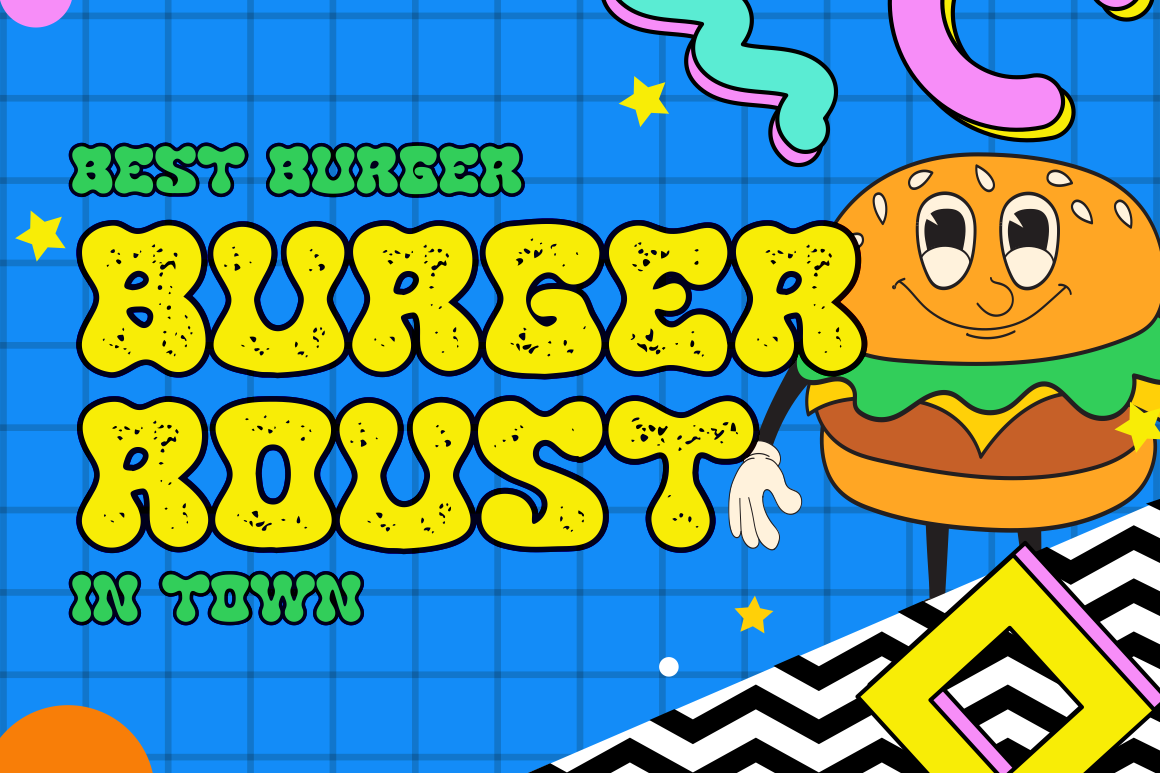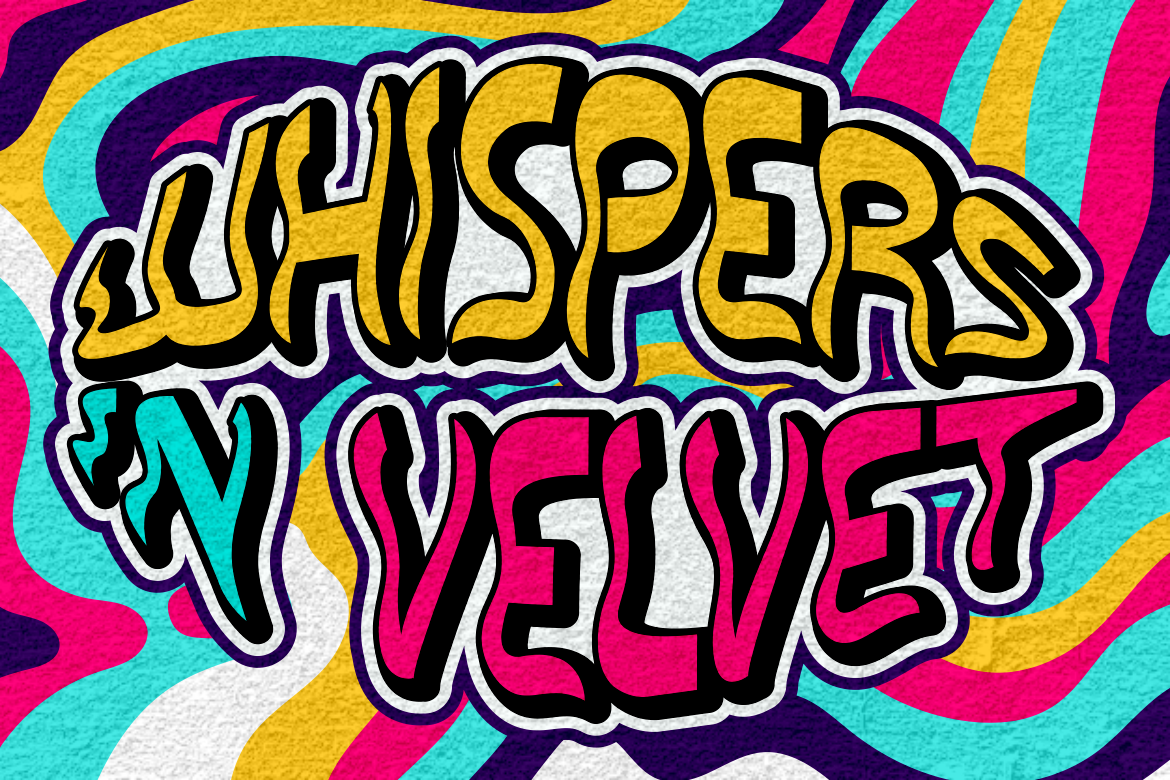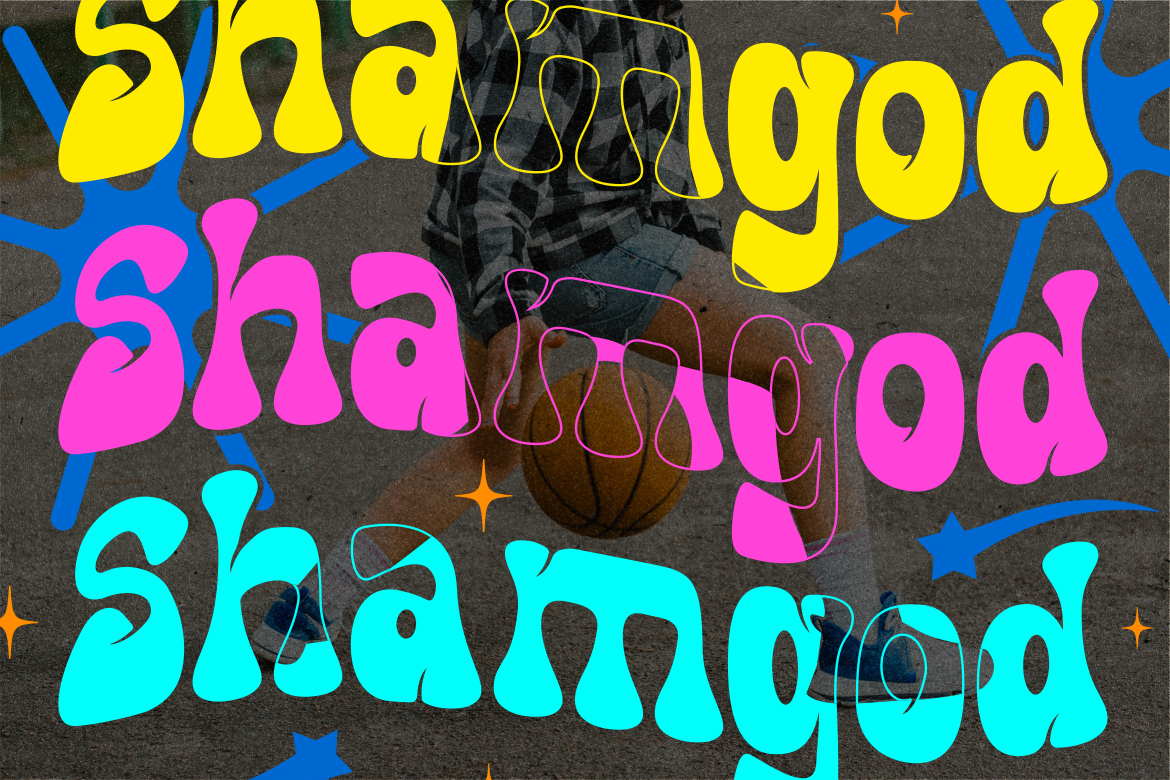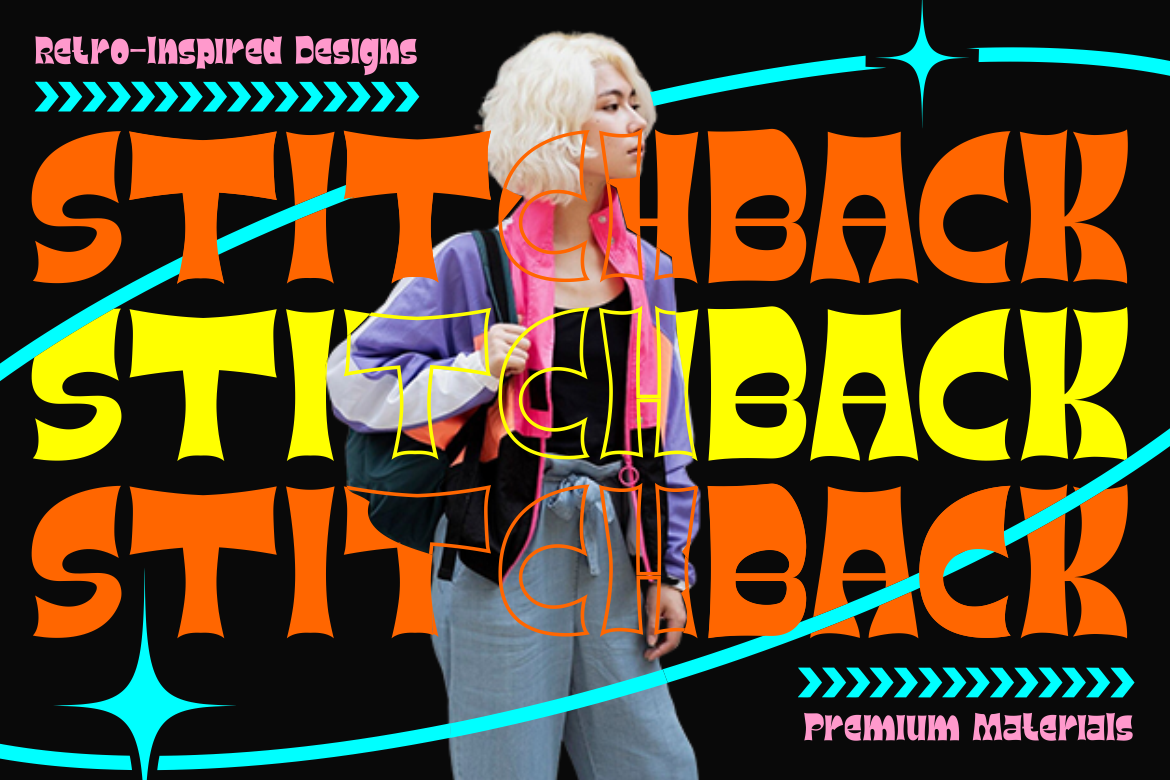
Why Fancy Fonts Matter : Adding Style, Personality, and Impact
Typography plays an essential role in shaping how audiences experience visual content. While clean and minimalist typefaces dominate corporate branding, there is a growing demand for expressive typography fonts that carry personality, flair, and artistic detail. These typefaces are commonly known as fancy fonts, and they offer a creative way to elevate design projects with distinctive visual storytelling.
Fancy fonts are decorative typefaces that go beyond basic letterforms. They bring a unique, expressive touch that makes designs feel more human, artistic, and memorable. Whether used in branding, posters, digital content, or invitations, fancy fonts help designers stand out in an increasingly competitive visual landscape.
This article explores the importance of fancy fonts in design, their practical uses, stylistic strengths, and top recommendations from Putracetol.com.
Why Fancy Fonts Matter
Fancy fonts offer something that standard typefaces often lack character. They help deliver a visual experience that is richer, more expressive, and emotionally engaging.
Create Distinction
One of the biggest advantages of fancy fonts is their ability to differentiate a design instantly. In a world full of minimalist typography, decorative fonts add personality and charm. They help brands and creatives break away from predictable styles.
Enhance Visual Aesthetics
Fancy fonts can introduce elegance, playfulness, drama, or artistic flair into a design. Their curves, unique strokes, and decorative features make visuals feel more crafted and intentional.
Support Creative Branding
Many brands want to appear unique, memorable, or expressive. Fancy fonts help shape that identity by communicating creativity, exclusivity, or a youthful brand voice. They work well for:
• Boutique shops
• Creative agencies
• Lifestyle brands
• Beauty and fashion
• Food and beverage businesses
Flexible Usage
Fancy fonts are versatile and work across both digital and print media. Whether used in social media graphics, posters, logos, packaging, or event invitations, they bring immediate visual impact.
Advantages of Fancy Fonts from Putracetol.com
Putracetol.com offers a wide selection of decorative fonts, each designed with precision and creativity. Here are the key advantages these fonts bring to design projects:
Decorative Aesthetics
Fancy fonts often include artistic strokes, stylistic alternates, and expressive shapes. These details make visuals feel premium, handcrafted, and visually engaging.
Style Variety
From retro-inspired displays to playful modern lettering, the fancy fonts at Putracetol.com offer diverse styles that suit different creative directions:
• Elegant
• Retro
• Playful
• Artistic
• Bold
• Whimsical
This variety allows designers to match typography with their project’s personality.
Boost Engagement
Unique fonts naturally attract attention. They make ads more clickable, posters more noticeable, and social media graphics more shareable. When a font stands out, the message becomes more memorable.
Strong Visual Identity
Fonts can even become part of a brand’s signature style. Their expressive nature helps build identity faster than generic typefaces, giving brands a recognizable visual vocabulary.
Applications of Fancy Fonts
Fancy fonts thrive in projects that require creativity, emotion, and a strong visual presence. Here are some of the most common and effective uses:
Logo and Branding
Decorative typefaces help shape brand voice. They bring personality into wordmarks and logos, giving brands a distinctive edge. Whether elegant or playful, fonts leave a lasting impression.
Posters & Advertising
Fancy fonts capture attention quickly, making them ideal for visual campaigns. Their expressive structure helps communicate the theme or emotion behind a poster at first glance.
Invitations & Greeting Cards
Wedding invitations, event cards, birthday greetings, and seasonal promotions all benefit from artistic typography. fonts introduce elegance, sentiment, and charm.
Digital Content
Social media posts, YouTube thumbnails, blog headers, and website banners perform better when typography carries strong visual character. fonts help increase engagement and reinforce storytelling.
5 Fancy Font Examples from Putracetol.com
Here are five standout fancy fonts that demonstrate the versatility and creative potential of decorative typography:
1. Funky Funny
A playful and cheerful decorative font perfect for lifestyle branding, fun advertisements, children’s content, and creative packaging. It combines humor with clear readability.